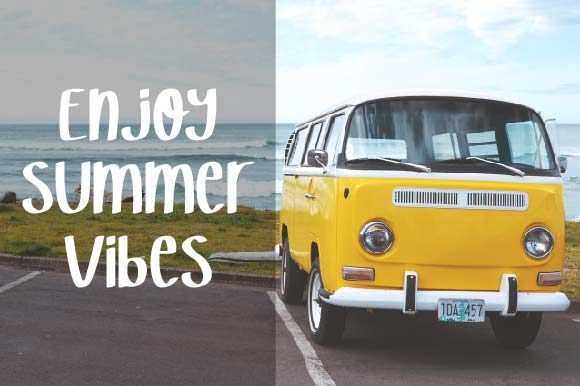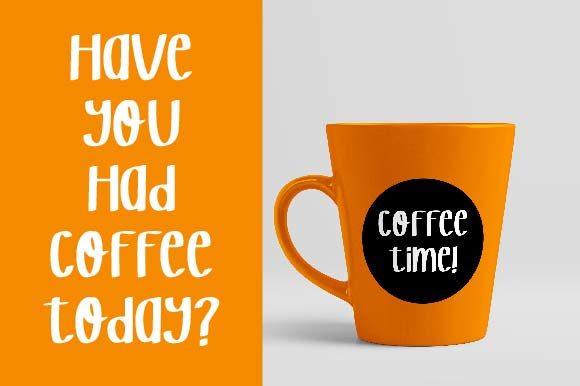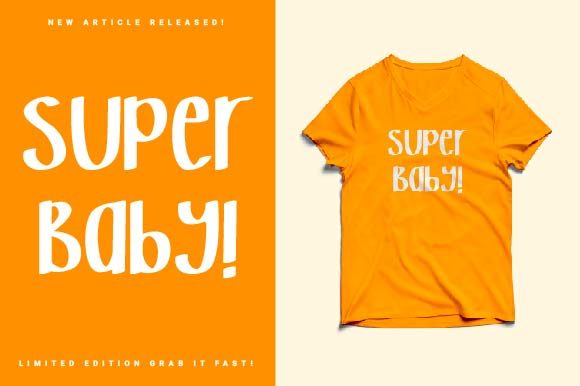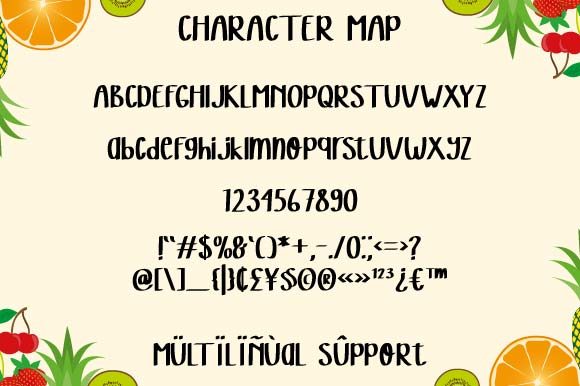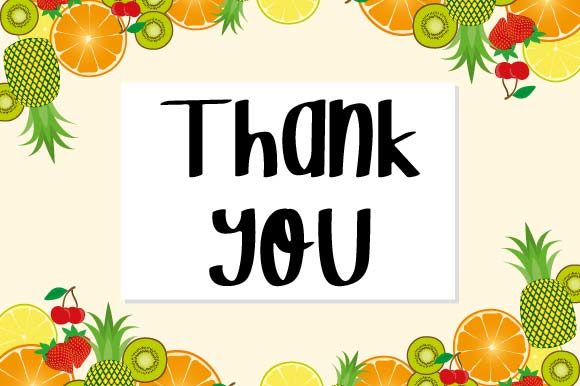
Spicing Up Your Designs with a Dash of Whimsy
Have you ever been in the midst of a creative project, staring blankly at your screen as inspiration refuses to strike? You’ve tried everything: sipping coffee, listening to your favorite playlist, and even rearranging your workspace, but nothing seems to be working. It’s moments like these that I find myself longing for a spark of creativity to reignite my passion for design.
That’s where the Butter Spoky Font comes in – a fun display font designed to add a unique and playful twist to your next craft or design project. With its bolded letters and irregular character sizes, this font is sure to bring a smile to your face and inject some much-needed whimsy into your work.
As a designer, you know the value of a versatile font that can elevate your designs and leave a lasting impression. The Butter Spoky Font is just that – a valuable addition to any design toolkit, perfect for adding a touch of personality to your next project.
Butter Spoky Font Key Features
- Font Family: Butter Spoky Font is a sans-serif font family designed for digital use.
- Unique Characteristics: Butter Spoky Font features a unique blend of modern and retro design elements, including rounded edges, subtle texture, and a distinctive sans-serif aesthetic.
Butter Spoky Font Review
I’ve had the chance to work with the Butter Spoky Font, and here’s my honest take. ✨
- Unique Aesthetic: The font has a quirky, playful vibe that’s perfect for projects that need a bit of whimsy.
- Legibility: Despite its spokiness, the font is surprisingly easy to read, especially at larger sizes.
- Character Set: The font comes with a decent character set, including punctuation and special characters.
Overall, I think the Butter Spoky Font is a great choice for designers looking to add some personality to their projects. ✨
- Small Capabilities: The font doesn’t have many capabilities at small font sizes, which can make it difficult to use in certain contexts.
- Limited Language Support: The font’s character set is limited to a few languages, which may not be suitable for projects that require multilingual support.
- Not Ideal for Body Text: Due to its quirky nature, the font may not be the best choice for large blocks of body text.
⚠️ Overall, I’d say the Butter Spoky Font is a fun, versatile font that’s perfect for projects where you want to add a bit of personality. Just be mindful of its limitations, and you’ll be golden! 😊
For optimal use of Butter Spoky Font, keep the following tips in mind:
– Use it for titles and headings to add a touch of whimsy.
– Pair it with clean sans-serif fonts for body text.
– Experiment with different font sizes and styles to create visual interest.
Common use cases for Butter Spoky Font include:
– Designing children’s books or educational materials.
– Creating playful and eye-catching marketing materials.
– Adding a touch of personality to social media graphics.